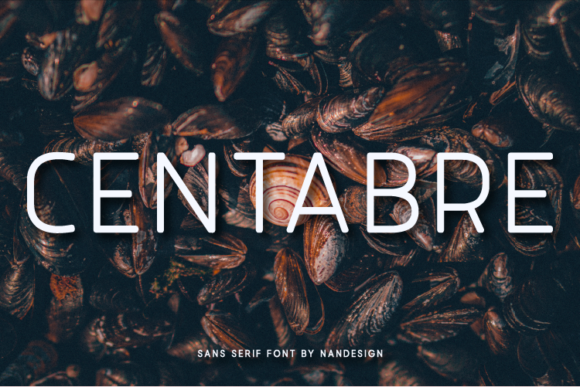
Introducing Centabre Font: Your Ultimate Design Companion
In the world of design, fonts are not mere tools; they are the architects of visual identity, the storytellers of emotion, and the weavers of connection. Discover Centabre Font, a sans serif masterpiece crafted by the ingenious minds at Nan Design, an ensemble of digital artisans who understand the transformative power of type.
Centabre Font is not just a collection of letters; it's an invitation to embark on a creative journey, a voyage where your imagination knows no bounds. This simple yet versatile font is meticulously designed to elevate every design project you undertake, leaving an indelible mark of elegance and professionalism.
A Symphony of Visual Harmony
Centabre Font graces your creations with a symphony of visual harmony, its clean lines and open counters creating a captivating canvas for your words. Experience the joy of crafting stunning headings that command attention, elegant invitations that whisper of grace, and striking logos that leave a lasting impression.
A font is not merely a tool; it's a conduit of communication, a vessel that carries the essence of your message to your audience. With Centabre Font, your words transcend the mundane, transforming into powerful statements that resonate with your audience's hearts and minds.
Unleash Your Creative Genius
Embrace Centabre Font and unleash your creative genius, letting your imagination soar to unprecedented heights. Create breathtaking posters that ignite emotions, design captivating social media graphics that demand attention, and craft presentations that inspire and persuade.
The possibilities are endless, like a boundless ocean of creativity waiting to be explored. Centabre Font is your guiding star, illuminating the path to design excellence, empowering you to weave visual tapestries that captivate and enchant.